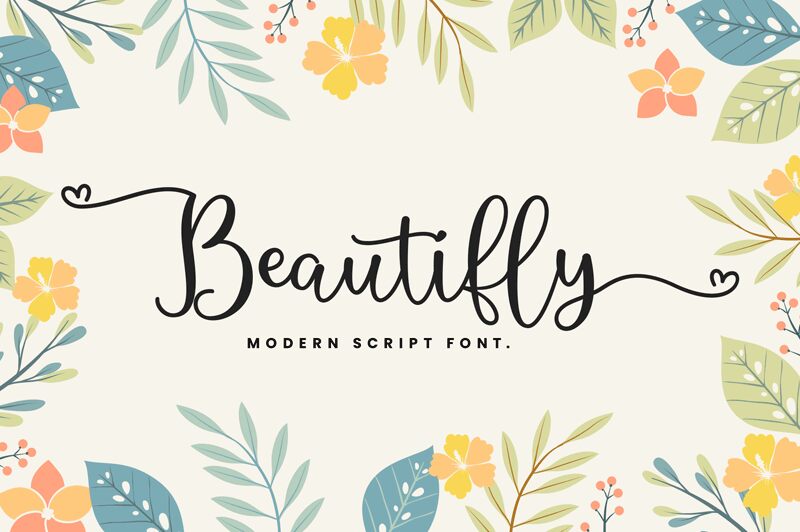
Beautifly Script, designed by Sizimon.id, is an elegant and graceful calligraphy font.
Its semi-light weight adds a delicate touch to any project, making it perfect for romantic wedding invitations and love letters. The flowing lines of this script font also make it ideal for adding a touch of sophistication to luxury branding and packaging designs.
With its versatility and timeless appeal, Beautifly Script is sure to elevate any project that requires a touch of elegance and refinement.